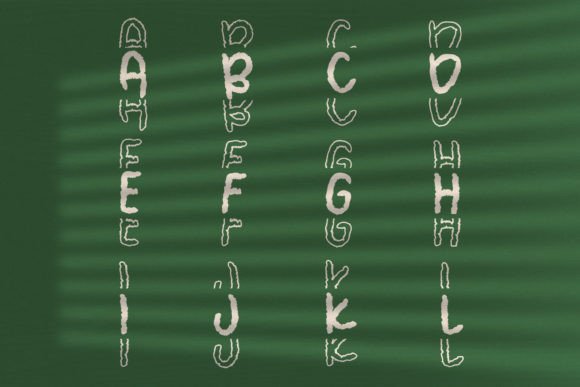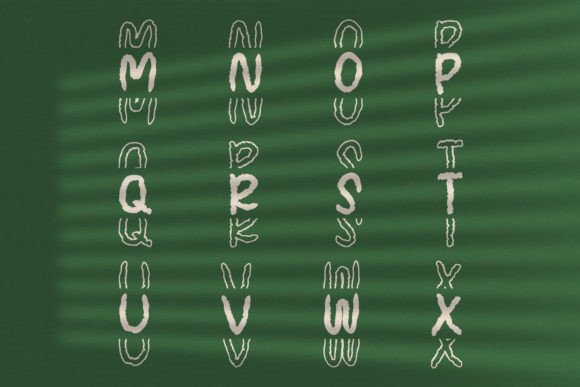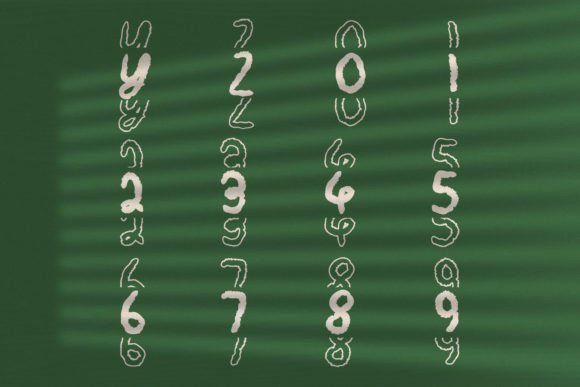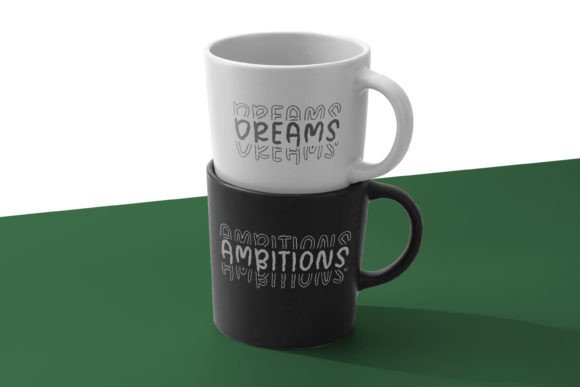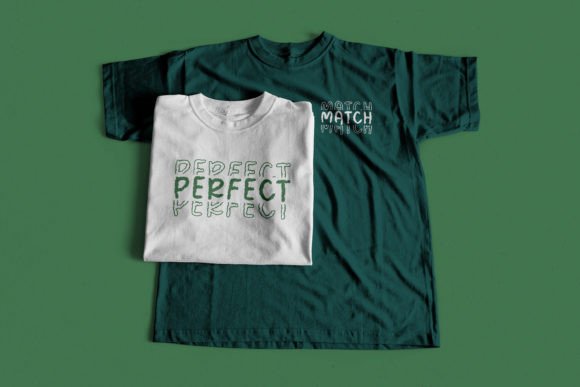
Introduction to Scribby Font Font
Fonts play a crucial role in design, and the Scribby Font font is a typeface that brings both character and versatility to any project. Whether you’re working on a branding project, a website, or a print design, the Scribby Font font offers a unique style that can elevate your work.
Scribby is an incredibly cool font.
Whether you use it for custom designs, DIY crafts, or just any creation that requires a lovely touch, this font will be an amazing choice .
Key Features of Scribby Font Font
Why Choose Scribby Font Font?
The Scribby Font font is more than just a typeface – it’s a design tool that helps you communicate your message with style and clarity. Its unique character set and versatile design make it suitable for a wide range of applications, from elegant invitations to bold headlines.
With its carefully crafted letterforms and balanced proportions, the Scribby Font font ensures readability and visual appeal across all mediums.
What makes Scribby Font font special?
The Scribby Font font stands out with its unique design, exceptional readability, and versatility across various design applications.